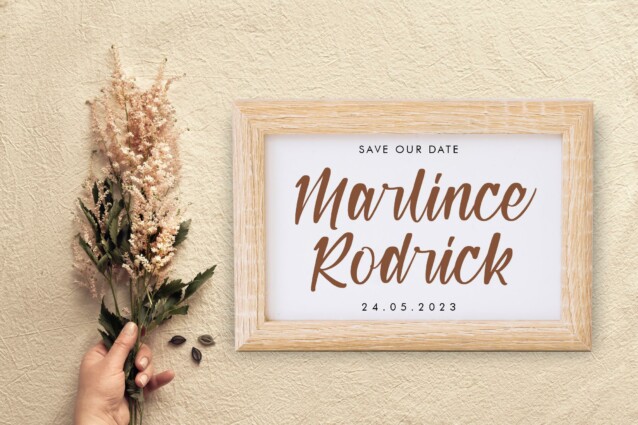
Danthela Myllian Font is a Casual Script Font, suitable for any projects such as: logos, branding projects, homeware designs, product packaging, mugs, quotes, posters, shopping bags, t-shirts, book covers, name card, invitation cards, greeting cards, label, photography, watermark, special events, and all your other lovely projects that need a beautiful script taste.